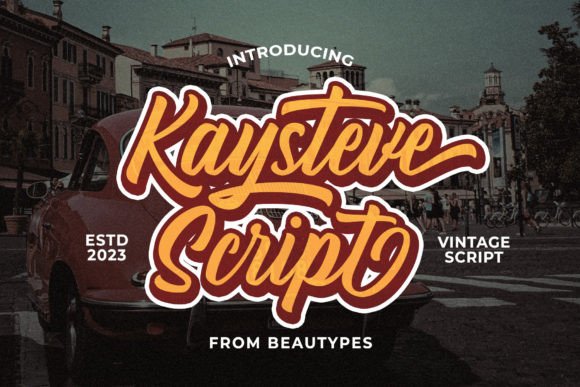
Welcome to the world of Kaysteve Script Font - the best font for lettering! Created by Beautypes, this font is a perfect blend of vintage and modern styles, offering a unique and captivating look to all your designs.
Kaysteve Script Font is the perfect choice for those who are looking for a handwritten font that can be applied in a variety of formal forms. Whether you are creating logos, invitations, labels, magazines, books, greeting/wedding cards, packaging, fashion, makeup, stationery, novels, or labels, this font is sure to make your designs stand out.
What makes Kaysteve Script Font even more special is that it is PUA encoded, which means that you can access all delightful glyphs and swashes effortlessly. This allows you to add more creativity and uniqueness to your designs, making them even more eye-catching and captivating.
With its vintage look and feel, Kaysteve Script Font is perfect for anyone who wants to add a touch of elegance and sophistication to their designs. It is the perfect choice for designers, bloggers, influencers, and anyone who wants to make their brand stand out from the crowd.